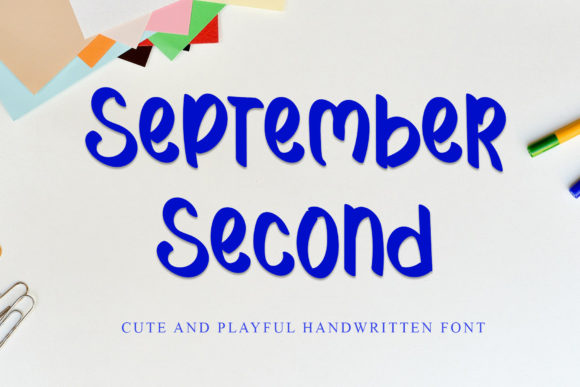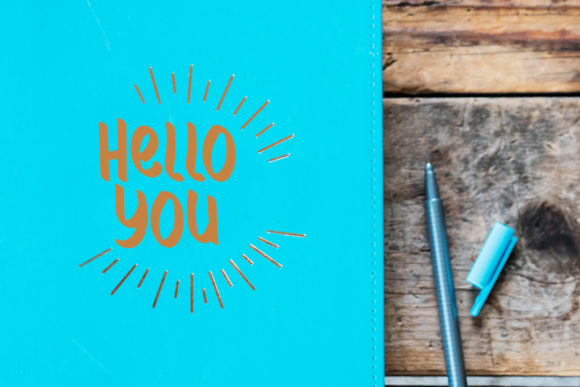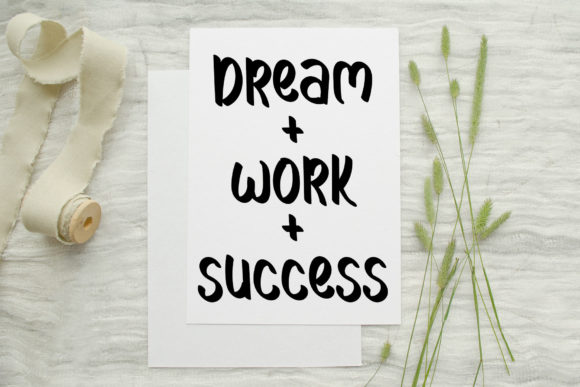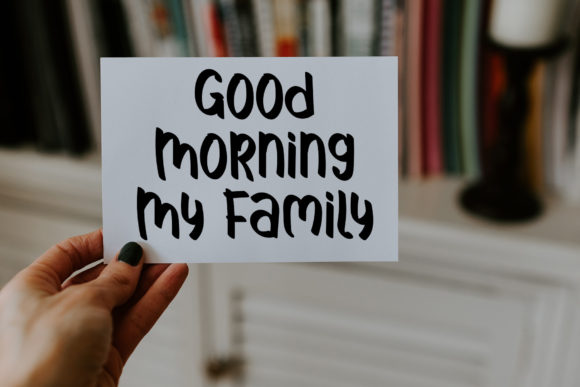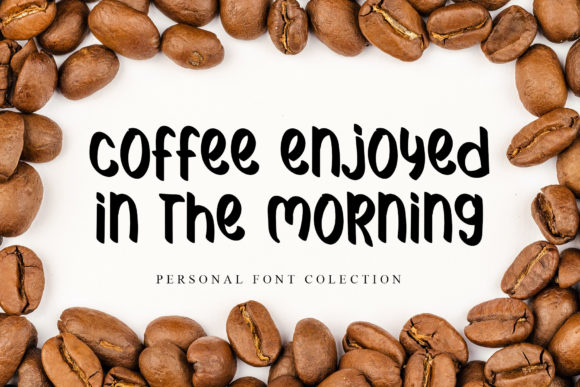
September Second Font
About September Second Font
September Second is a cute, clean and simple handwritten font. It can easily be matched to an incredibly large set of projects, so add it to your creative ideas and notice how it makes them stand out!